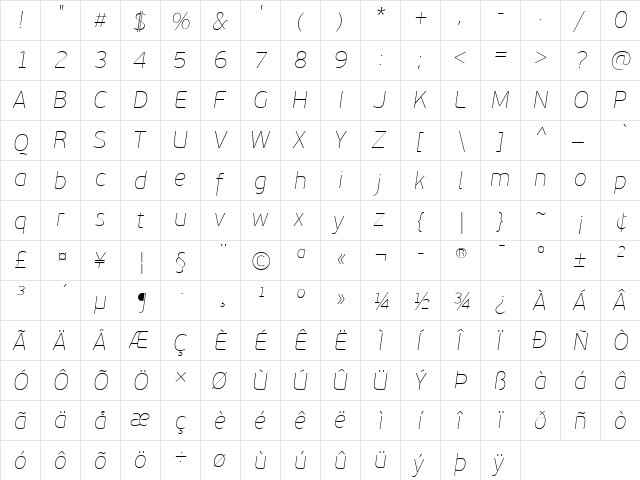
PF BeauSans Pro ExtraThin Italic
| Foundry | Parachute蠗orldwide |
| Designer | Panos Vassiliou |
Design Context for PF BeauSans Pro Typeface
PF BeauSans Pro offers clean, dependable letterforms without strong stylistic allegiance, making it a practical choice for designers who need flexibility. The slanted form adds forward momentum and visual energy. The delicate stroke weight brings airiness and refinement to layouts.